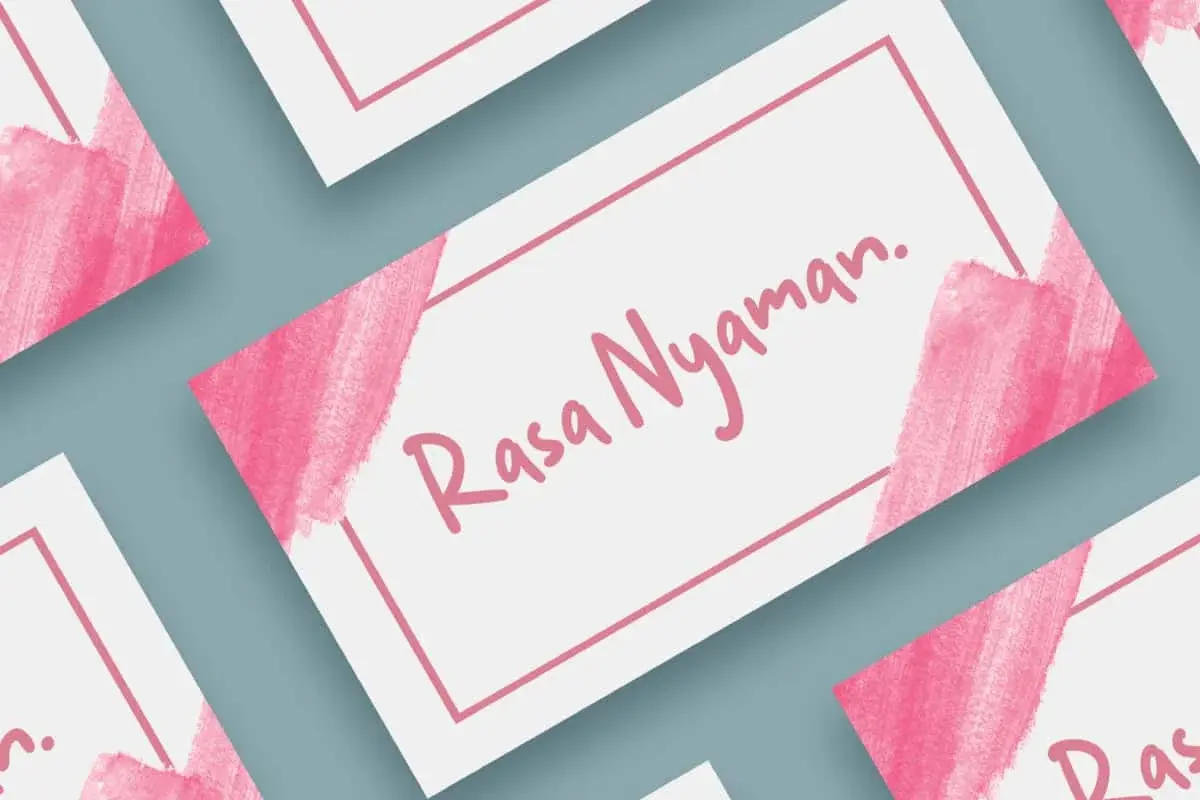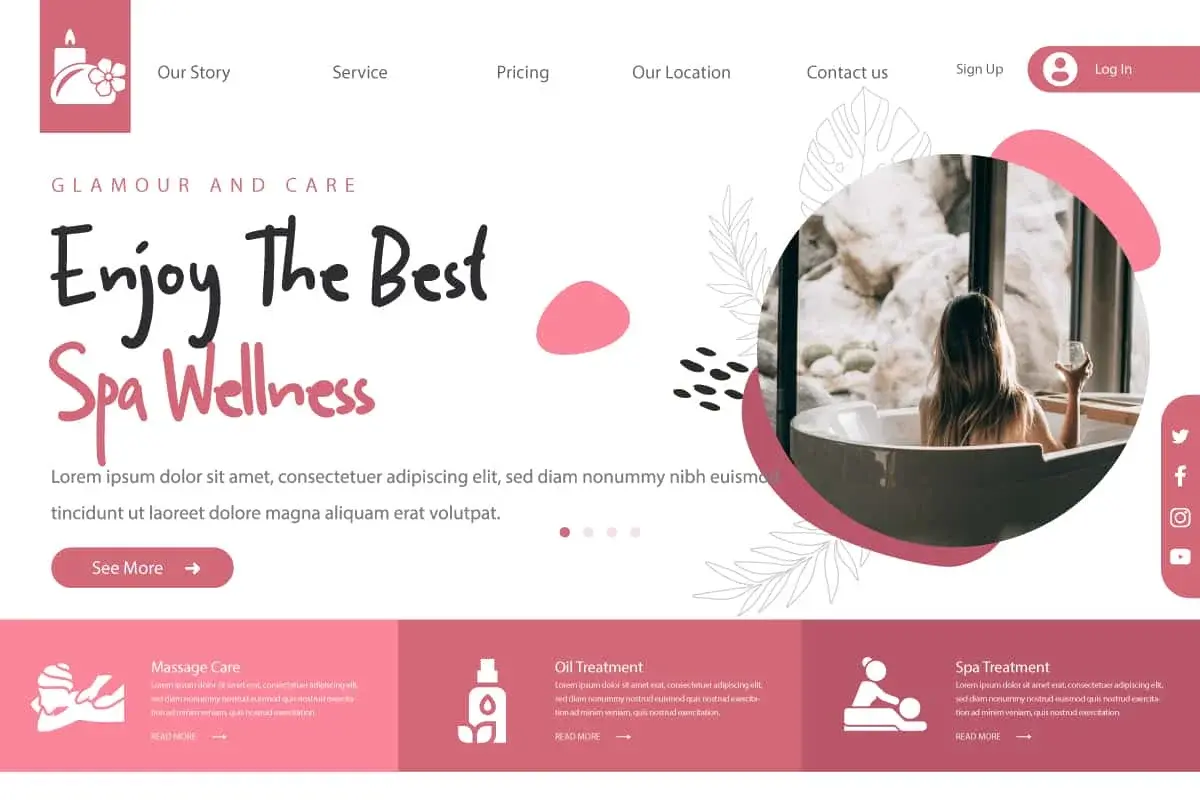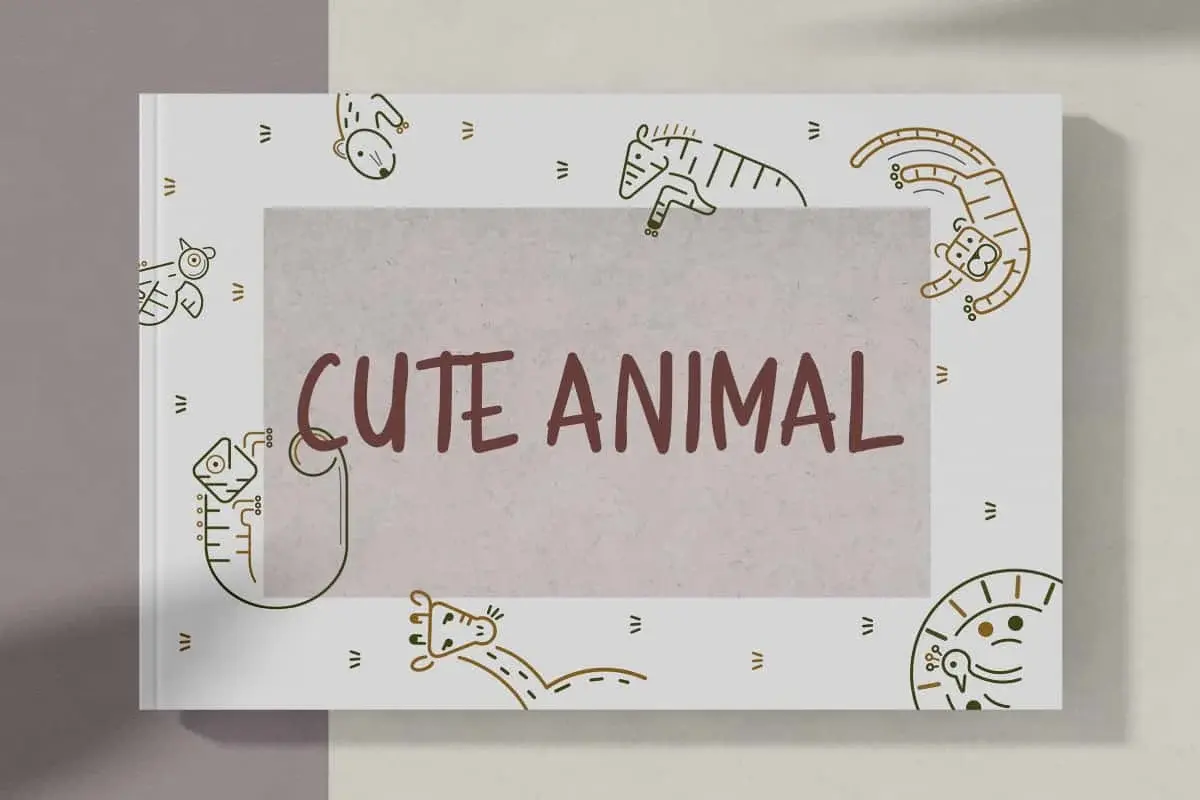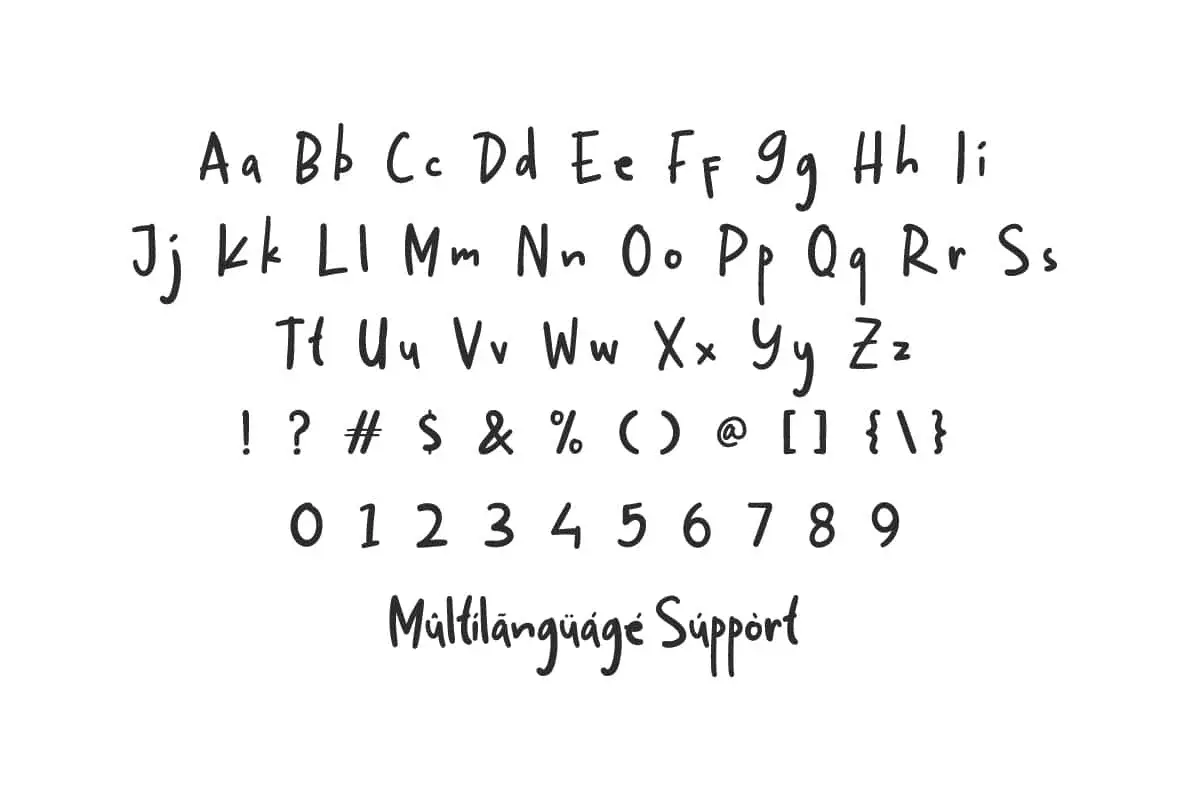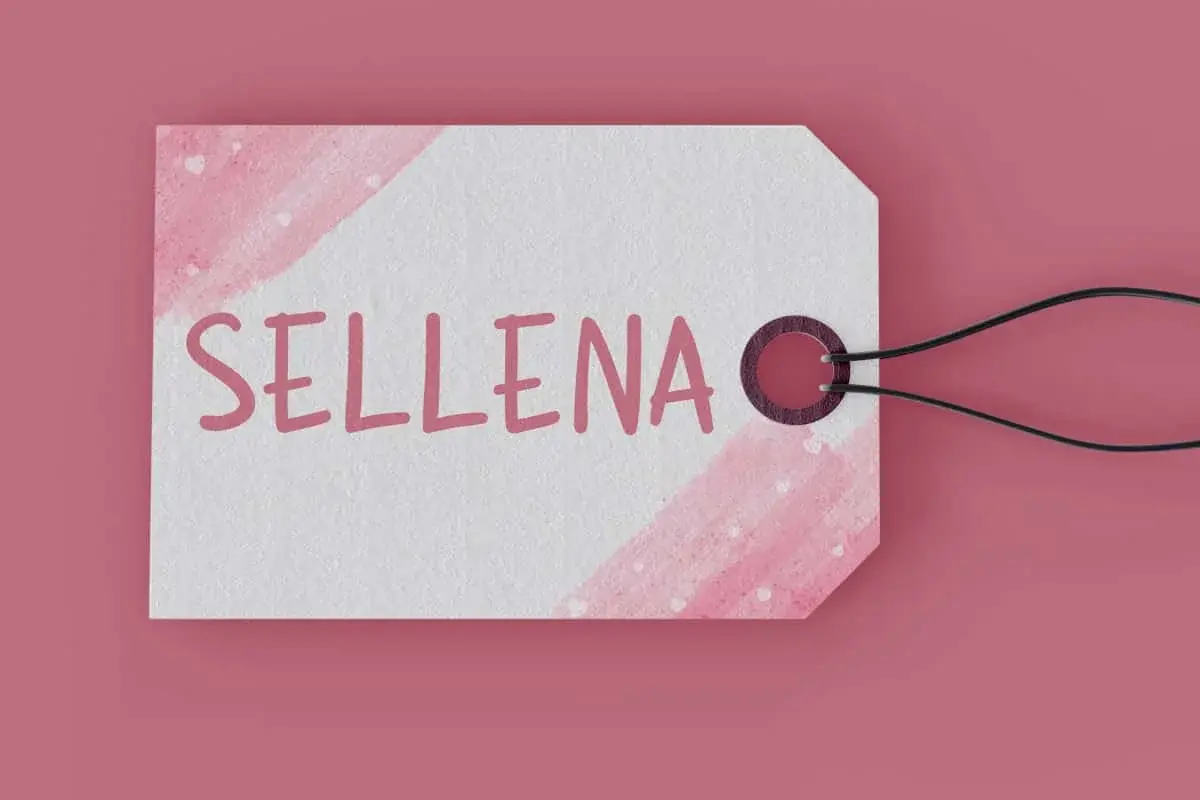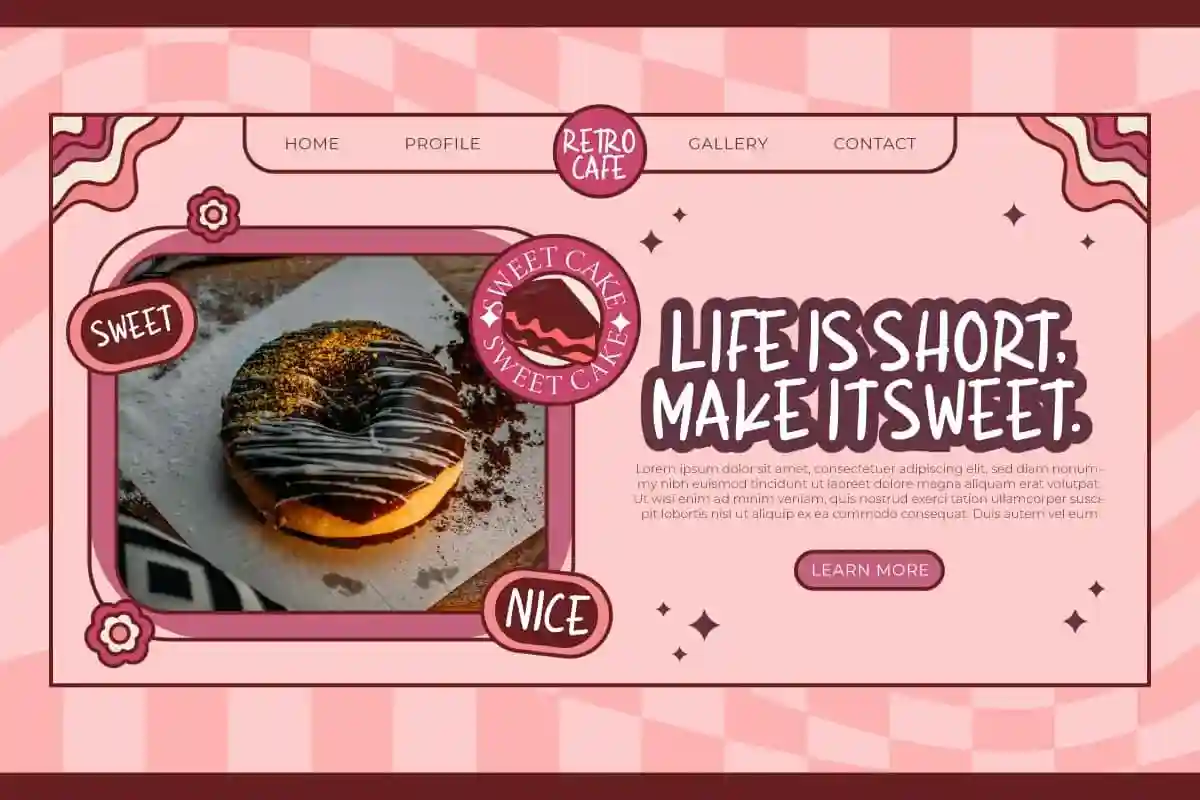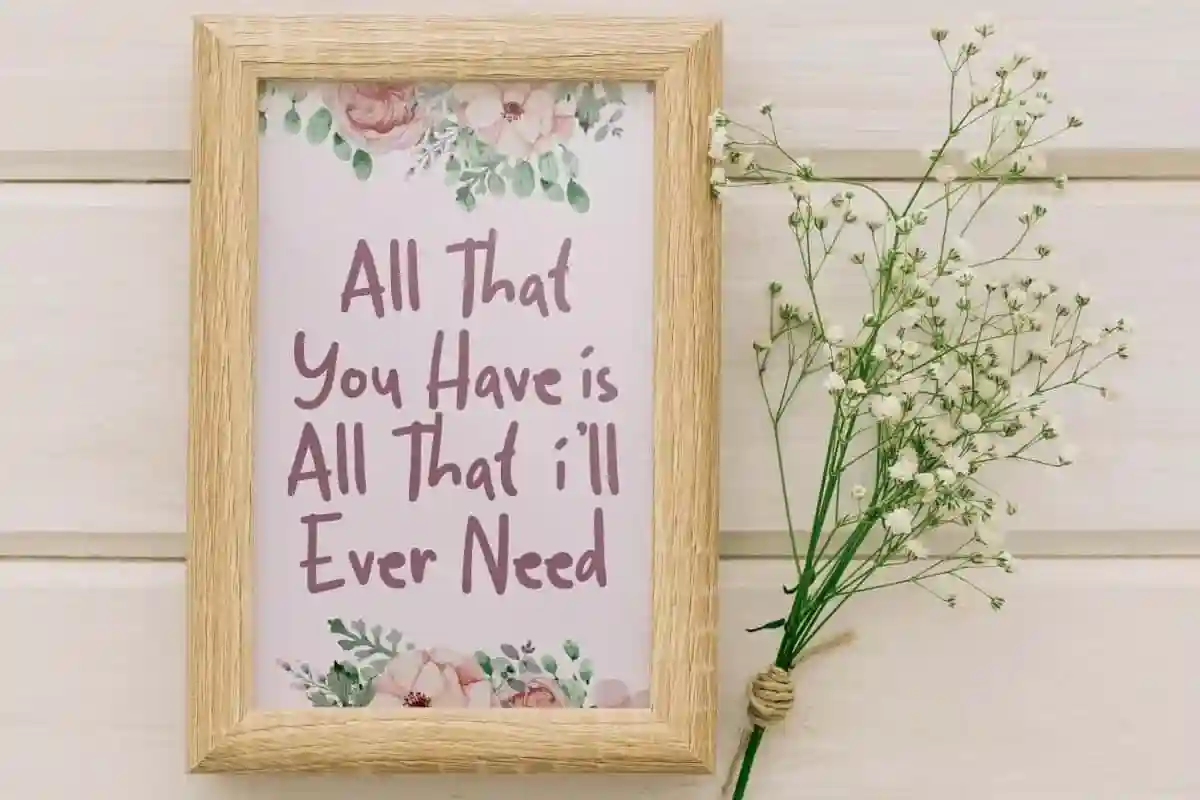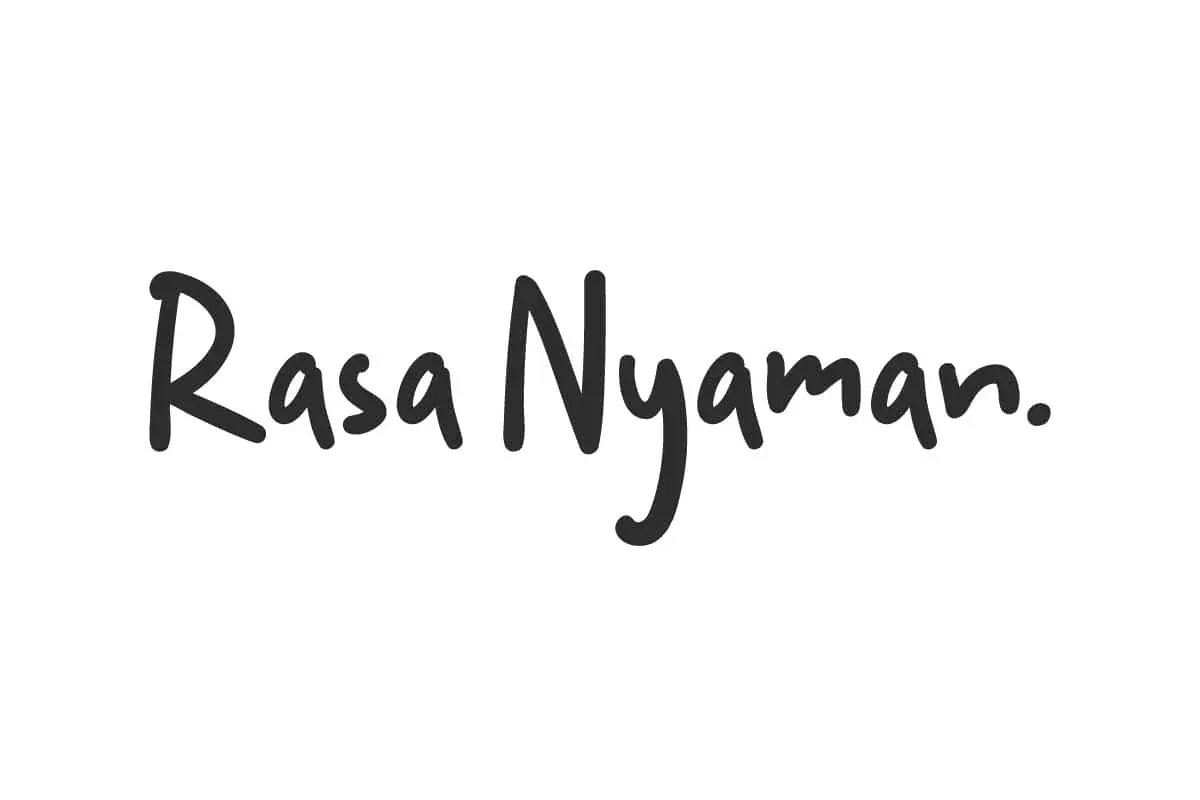
Rasa Nyaman Font
Rasa Nyaman Font is a cute and attractive display font that is originally handmade from scratch. Make your creative ideas stand out with this playful font!
Rasa Nyaman Font is a cute display font that will make your designs look real and interesting. This typeface captures the essence of joy. Suitable for use on blogs, brochure, covers, custom mug, editorials, greeting cards, headers, headline, invitation, labels, logos, mockup, quotes, stationery, title, watermark, web display, etc.
Rasa Nyaman Font includes a complete set of Basic Uppercase and Lowercase Characters, Numbers, Punctuation Marks and Symbols. Due to the cheerful feel and impressive visuals of this font, it can work in both large and small sizes. It will suit all business sectors including apparel, bakery, education, event organizer, fashion, florist, graphic design, photography, spa salon, and much more.